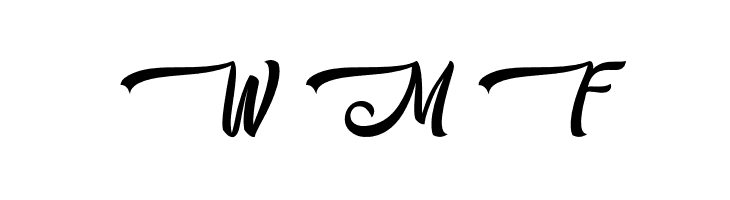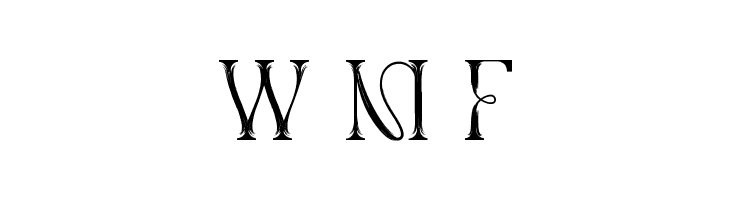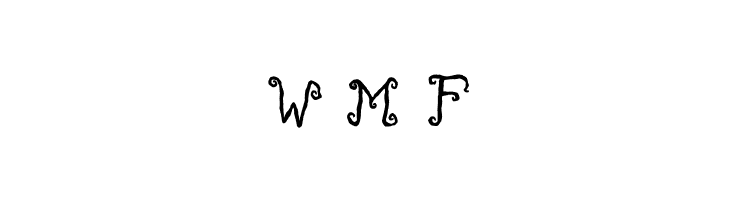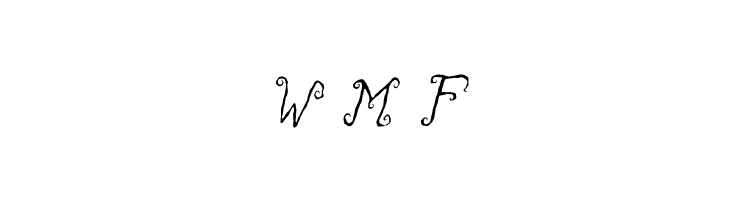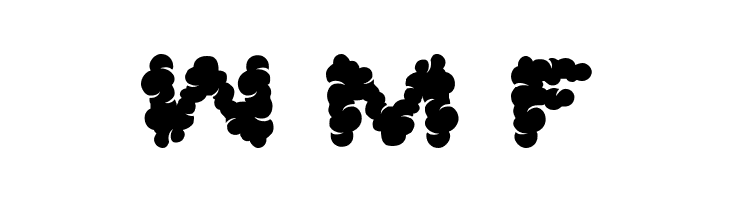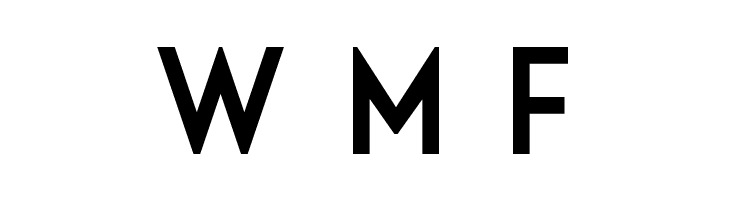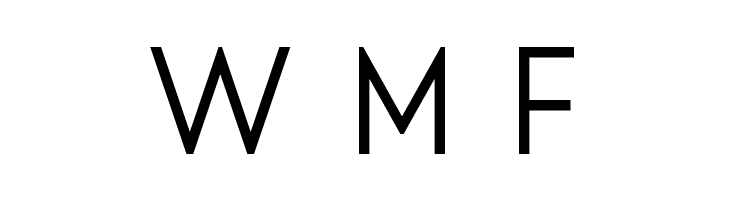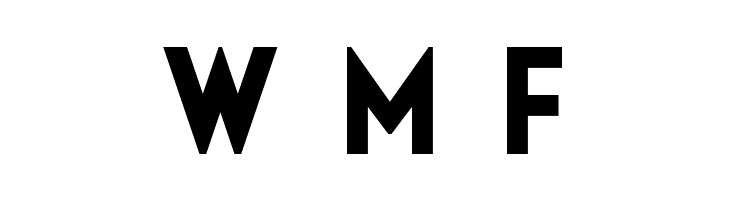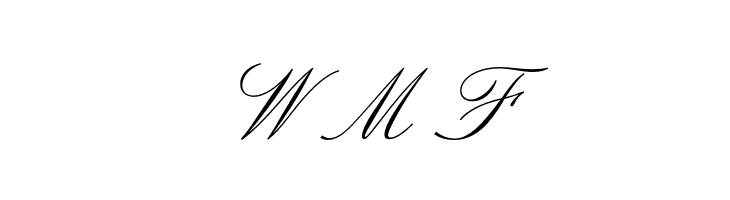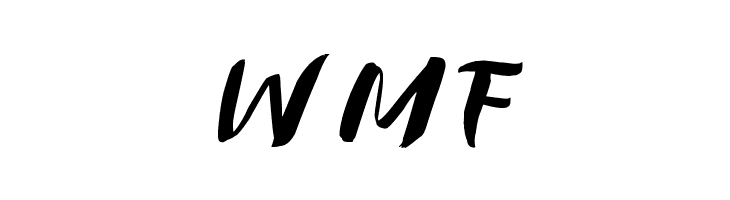
A digital, segmented font with a futuristic, LED display style.
A bold, geometric font with a futuristic and abstract design.
A bold, playful handwritten font with thick strokes and a casual style.
An elegant script font with flowing, cursive letters and a classic appearance.
A modern, bold sans-serif font with clean lines and balanced proportions.
A modern, geometric sans-serif typeface with balanced proportions and clear readability.
A sleek, modern typeface with a slight italic slant and consistent stroke width.
A bold, playful font with geometric and whimsical design elements.
A playful, cloud-like font with a bubbly and whimsical design.
A bold, modern sans-serif font with clean lines and strong readability.
A bold, geometric font with a modern and impactful design.
A modern, geometric sans-serif font with clean lines and balanced spacing.
A bold, geometric font with a double-line outline for a modern look.
A bold, geometric font with a double-line outline, perfect for modern designs.
An artistic font with fluid, droplet-like terminals and elegant curves.
A playful, curly font with bold, spiral elements.
A playful and whimsical icon-based font with bold, outlined numbers.
Decorative icon-based font with playful, outlined numerals.
A playful, hand-drawn font with a textured, whimsical style.
An elegant, decorative font with calligraphic elements and intricate flourishes.
A rugged, hand-drawn font with a playful and edgy style.
A playful and elegant script font with decorative swashes and fluid connections.
A whimsical, handwritten font with playful, uneven strokes.
A classic blackletter font with ornate, angular strokes and a medieval aesthetic.
An ornate Gothic font with intricate details and dramatic flourishes.
Intricate, abstract line designs with a vintage and modern aesthetic.
A clean, geometric font with sharp angles and consistent structure.